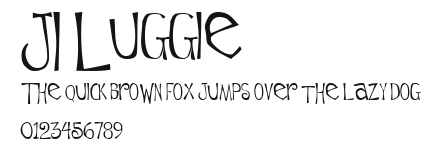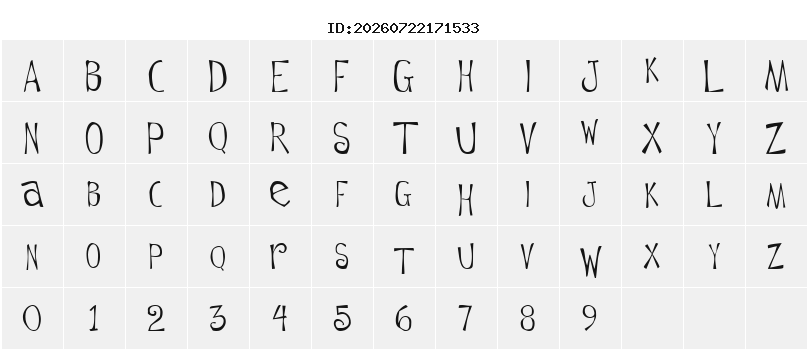
JI-Luggie Preview
• Font Name: JI-Luggie
• Font ID: Macromedia Fontographer 4.1 Narrow Florina
• Full Font Name: JI-Luggie
• Version: Macromedia Fontographer 4.1 5/25/2001
• PostScript Name: JI-Luggie
• Designer: JupiterImages
About JI-Luggie.ttf
JI-Luggie.ttf is a modern, elegant sans-serif font designed for ultimate readability and visual harmony. Perfect for branding, headlines, web design, and print materials.